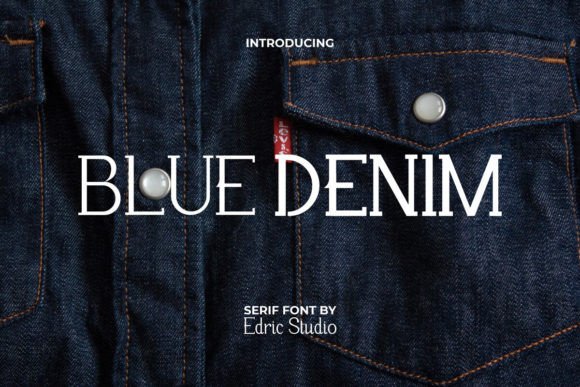
Venture into a world of sophistication and timeless elegance with Blue Denim Font, a classic serif font meticulously crafted by EdricStudio. Blue Denim's simple yet striking presence breathes life into your digital creations, adding a touch of refinement that captivates and enchants.
Unleash your creativity with this versatile font family, featuring three distinct styles – Regular, Bold, and Italic – that effortlessly adapt to a multitude of design projects. Whether you're a seasoned designer or just starting your creative journey, Blue Denim's user-friendly nature makes it the perfect companion for expressing your ideas.
Immerse yourself in the world of fashion, architecture, or photography, and let Blue Denim's timeless charm elevate your designs. Its clean lines and elegant curves bring a sense of professionalism to your work, while its versatility allows you to explore a myriad of creative possibilities.
Step into the spotlight with Blue Denim's bold and confident style. Create eye-catching headlines that demand attention, or craft captivating social media posts that leave a lasting impression. Blue Denim's ability to convey both strength and grace makes it the ideal choice for businesses seeking to make a statement.
For those seeking a touch of intrigue and mystery, Blue Denim's italic style beckons you to explore the unexplored. Its fluid strokes and graceful curves add a touch of elegance to invitations, wedding stationery, or branding materials, leaving a lasting impression on your audience.
With Blue Denim Font, you hold the key to unlocking a world of creative possibilities. Its timeless beauty and versatility make it the perfect choice for designers of all levels, empowering you to create designs that resonate with your audience and leave a lasting legacy. Embrace the allure of Blue Denim Font today and elevate your designs to new heights.